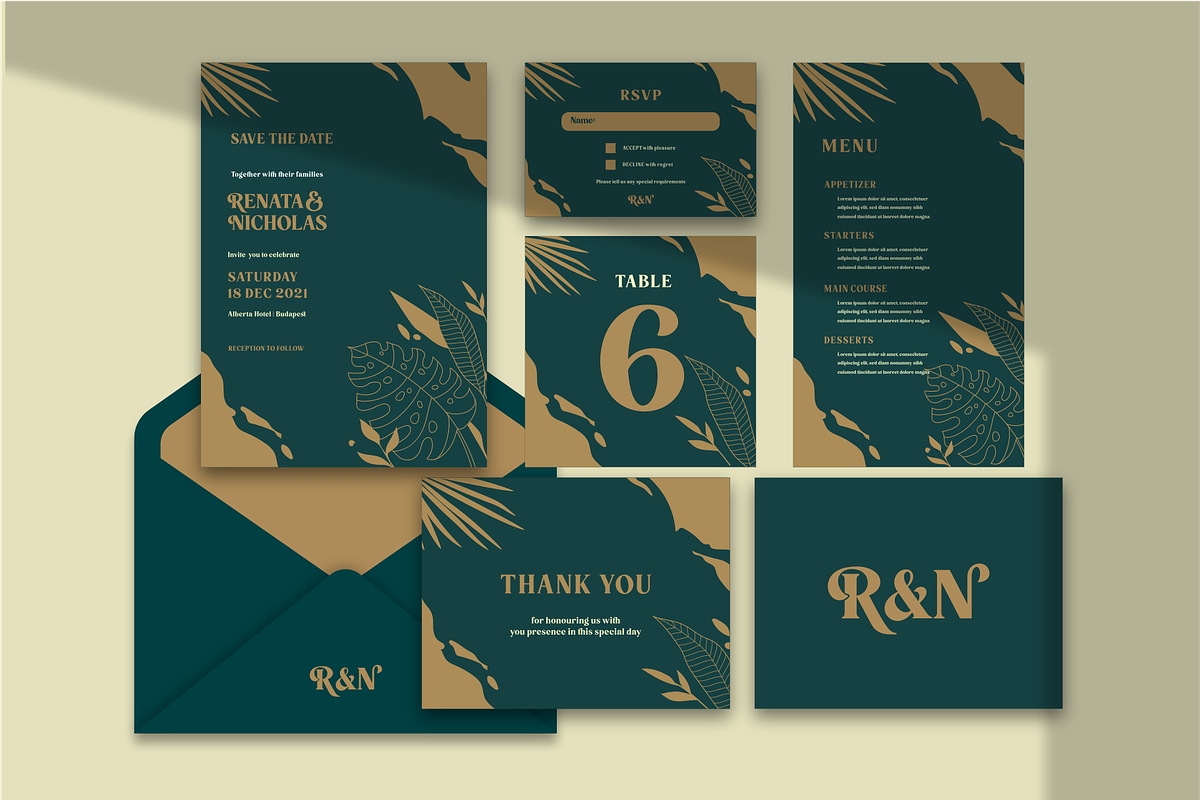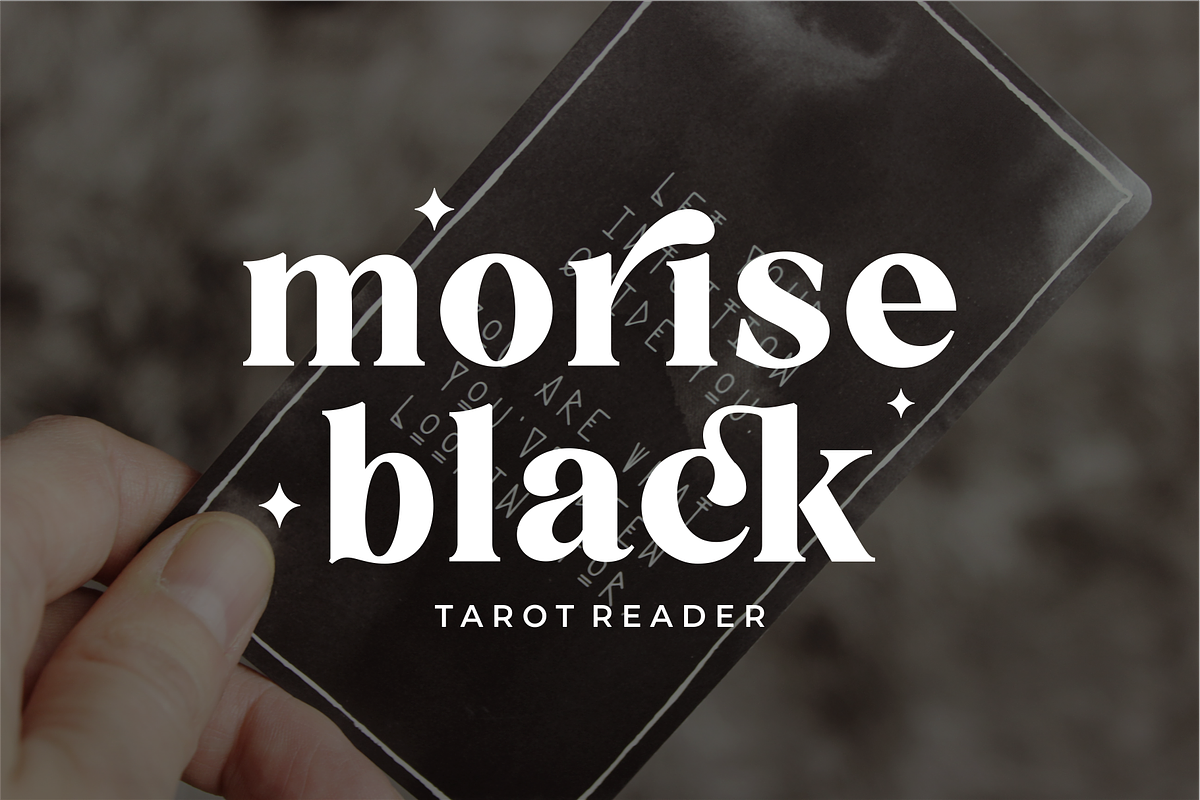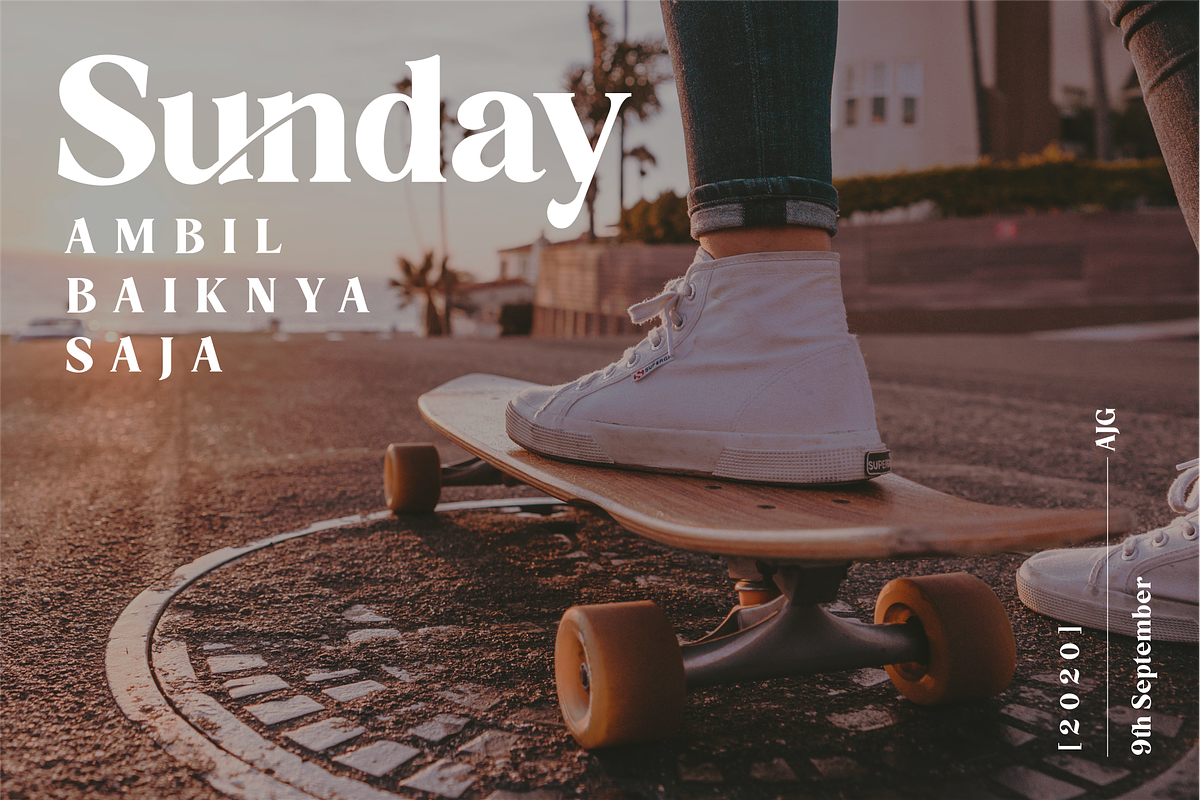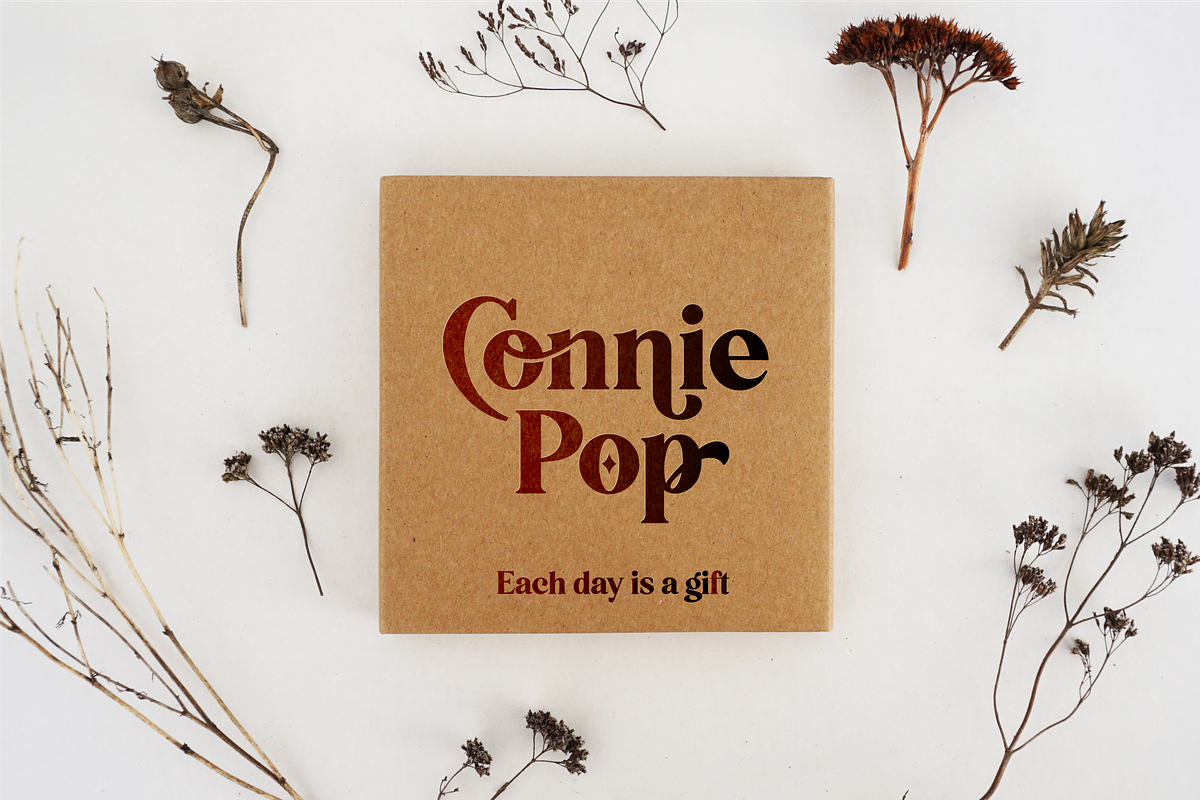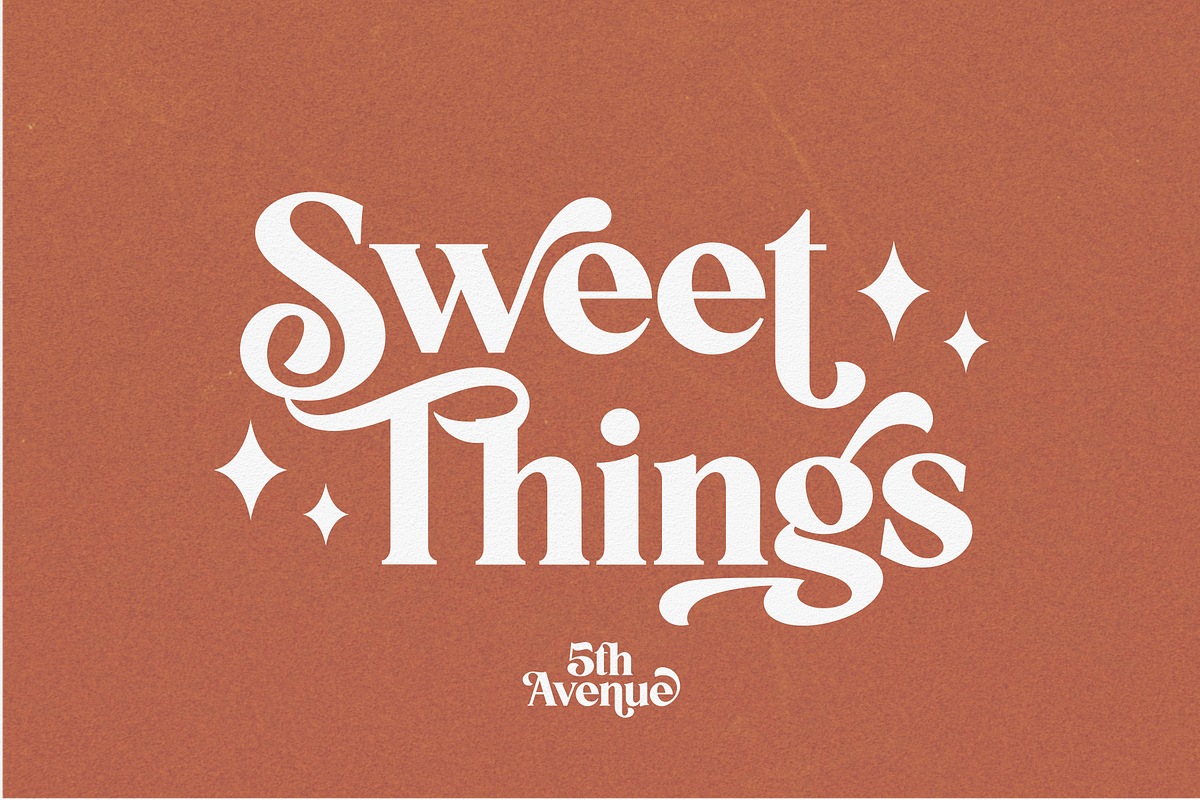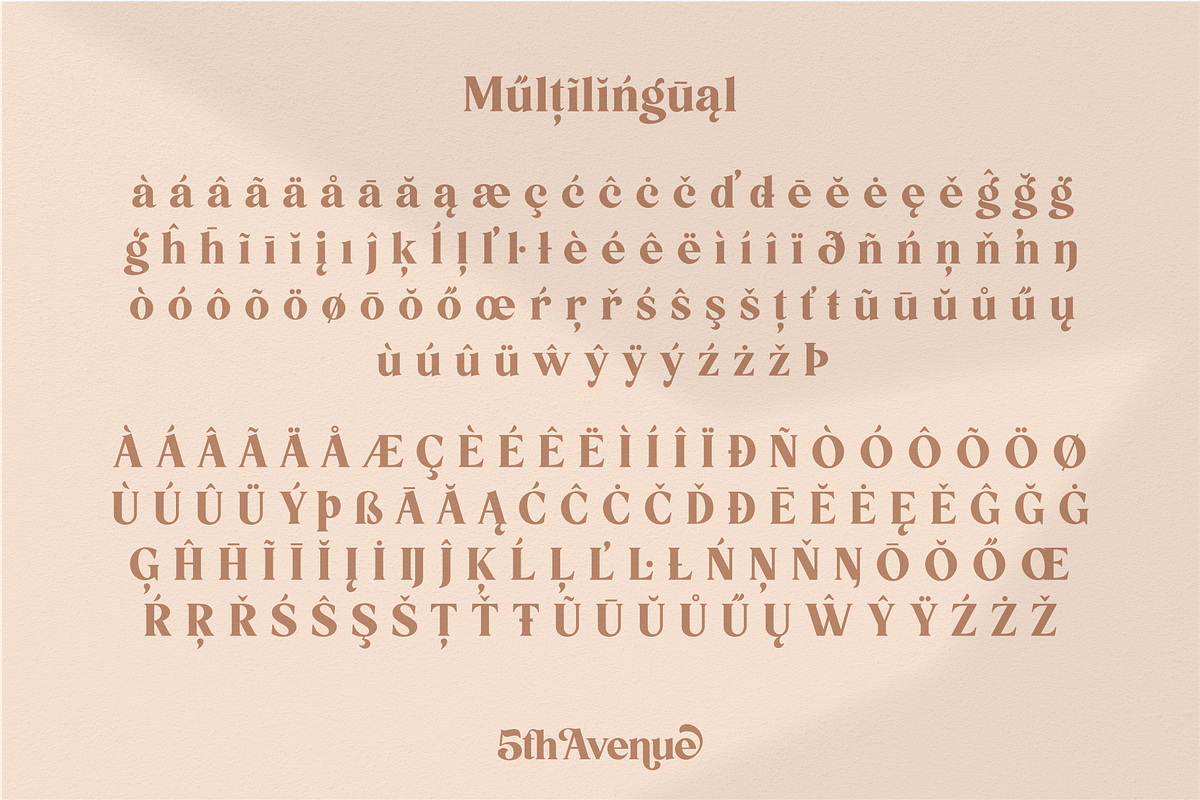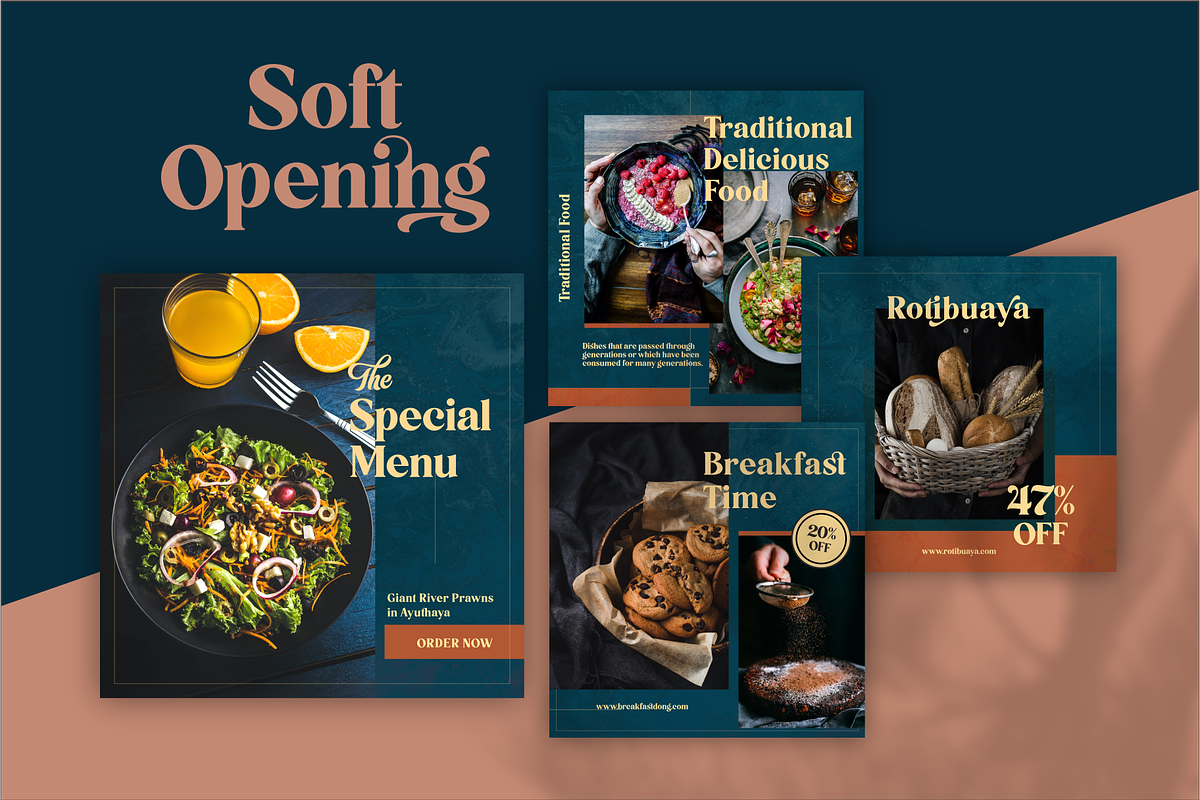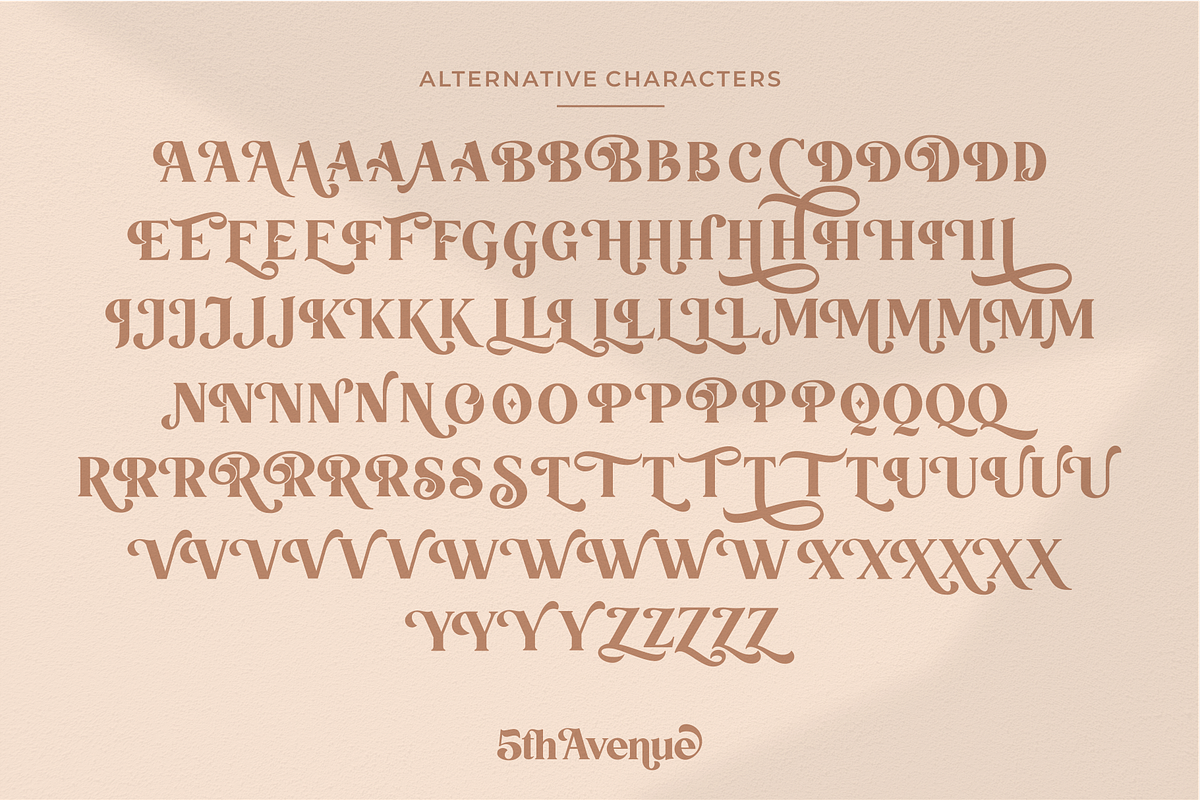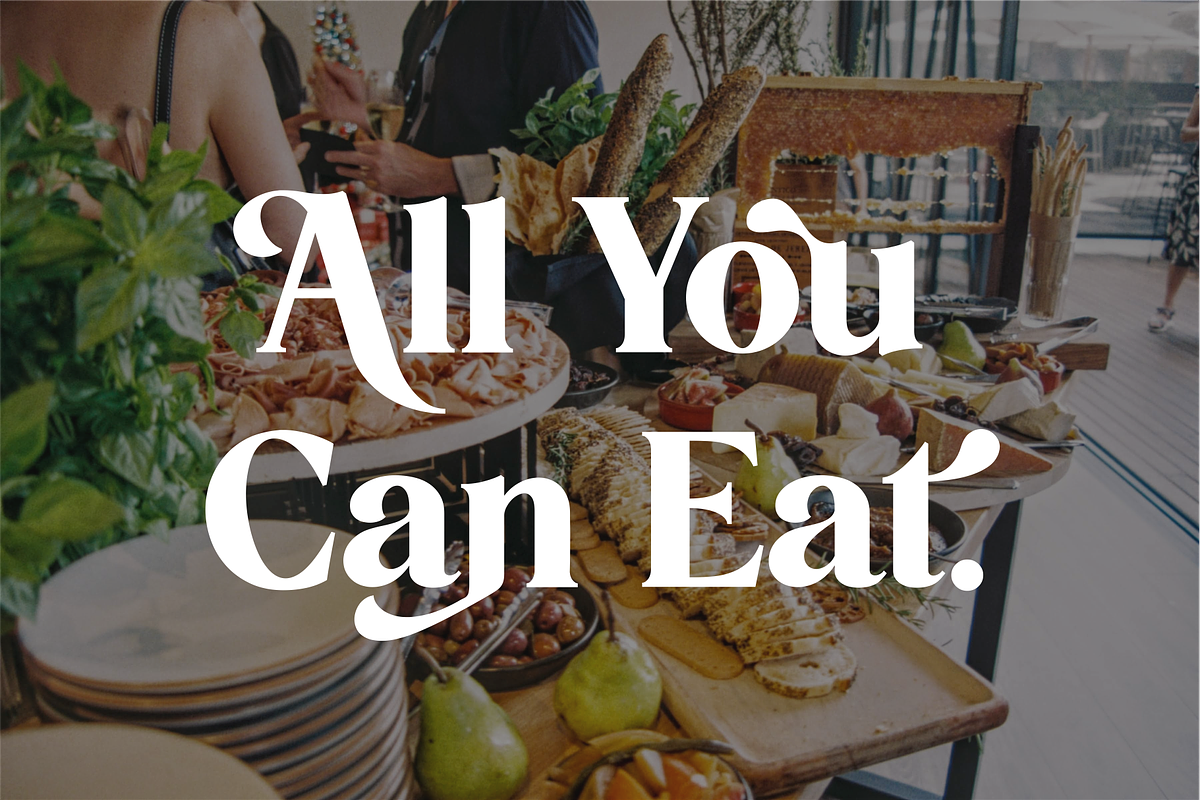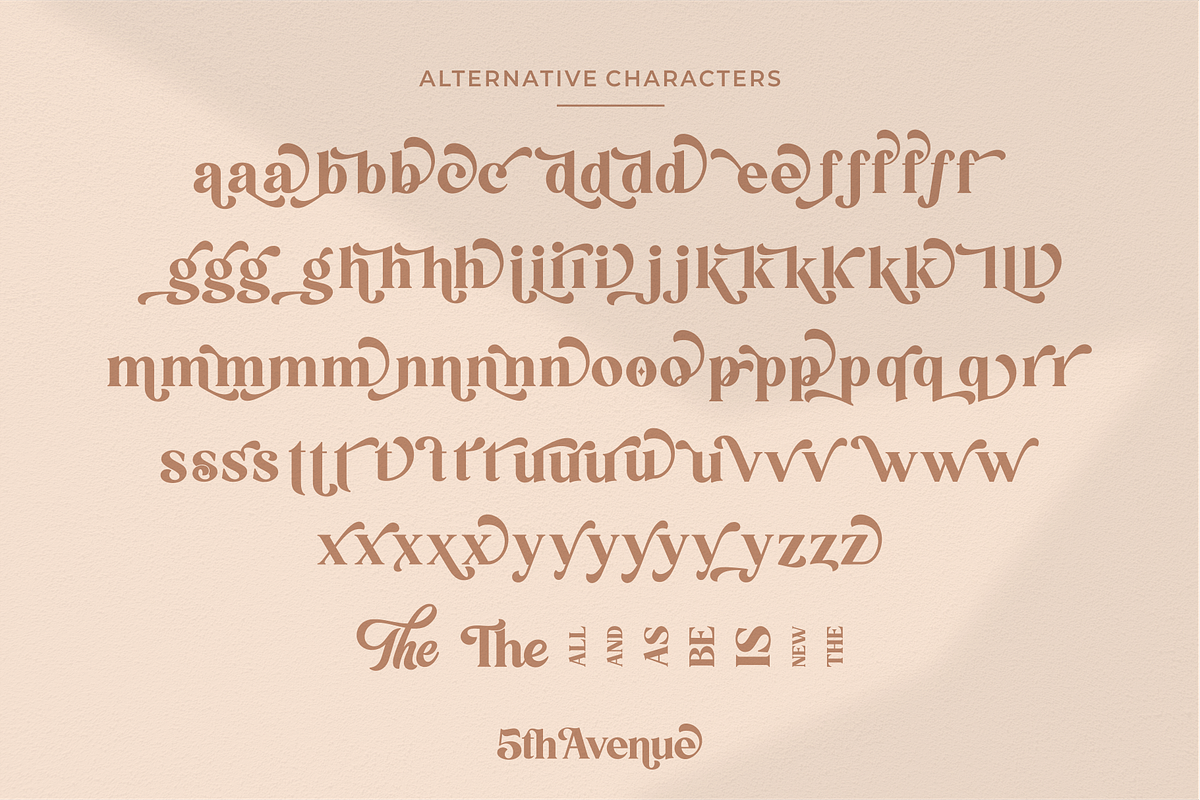
5th Avenue - Fancy Typeface
Introducing “5th Avenue” - A brand new Fancy Typefaces with tons of alternative characters, ornaments, multilingual support and unique ligatures.
This fonts inspired by some of the edgiest looks from the modern luxury fashion.
5th Avenue can impress us with Classical Style by accessing tons of alternative letters in Opentype Features. Not only that.
You can display the Elegant Typography Style simply by adjusting the spacing between the letters.
5th Avenue is very versatile fonts. Perfect for branding projects, logos, magazine imagery, wedding invitations, posters, clothing, packaging, website headers, or simply as a stylish text overlays to any background image.
Language support for 27 languages:
Afrikaans, Albanian, Catalan, Croatian, Czech, Danish, Dutch, English, Estonian, Finnish, French, German, Hungarian, Icelandic, Italian, Latvian, Lithuanian, Maltese, Norwegian, Polish, Portugese, Slovak, Slovenian, Spanisch, Swedish, Turkish, Zulu
Gave me the exact look I wanted! The many ligatures add the perfect flair to any signage. Bold and elegant!
I absolutely adore this font. It´s beautiful, refined, consistent in character, and full of ligature options for creating endless written graphic content. It has loads of personality and presence, and it´s working great for a design and branding project for a home builder client of mine who wants to set his business apart from the crowd.